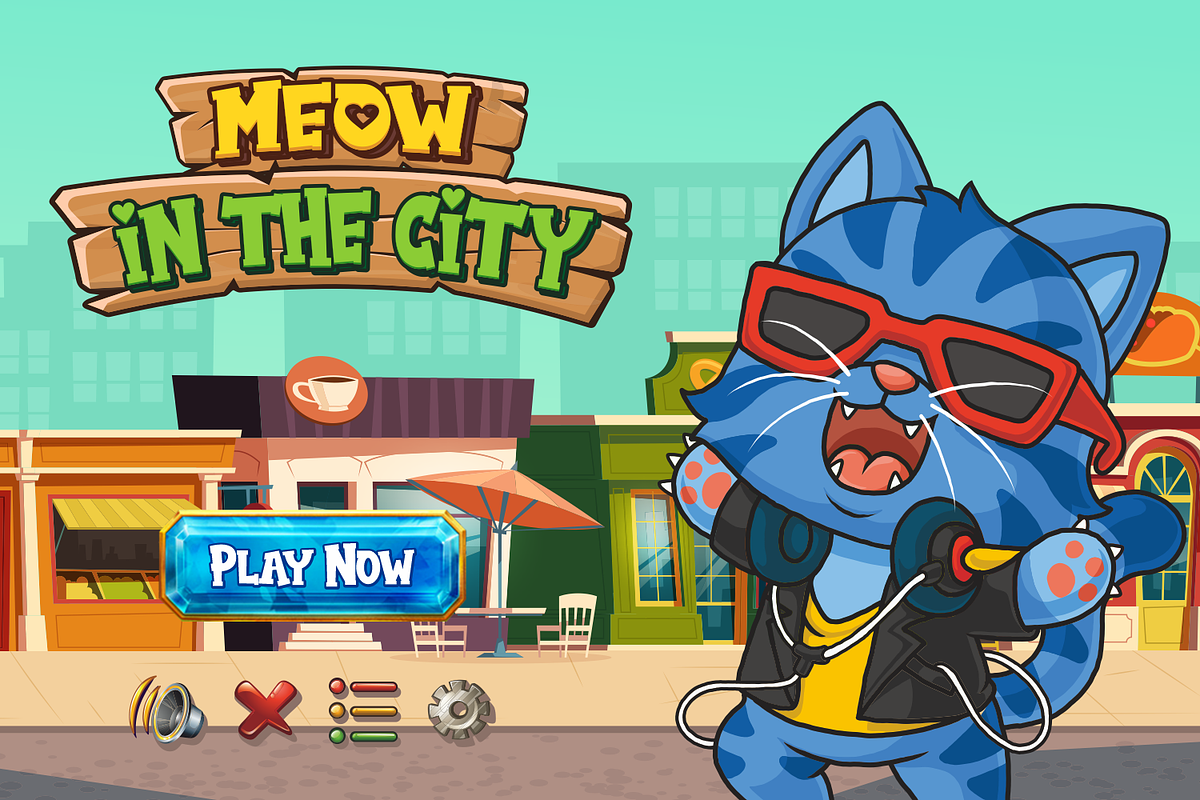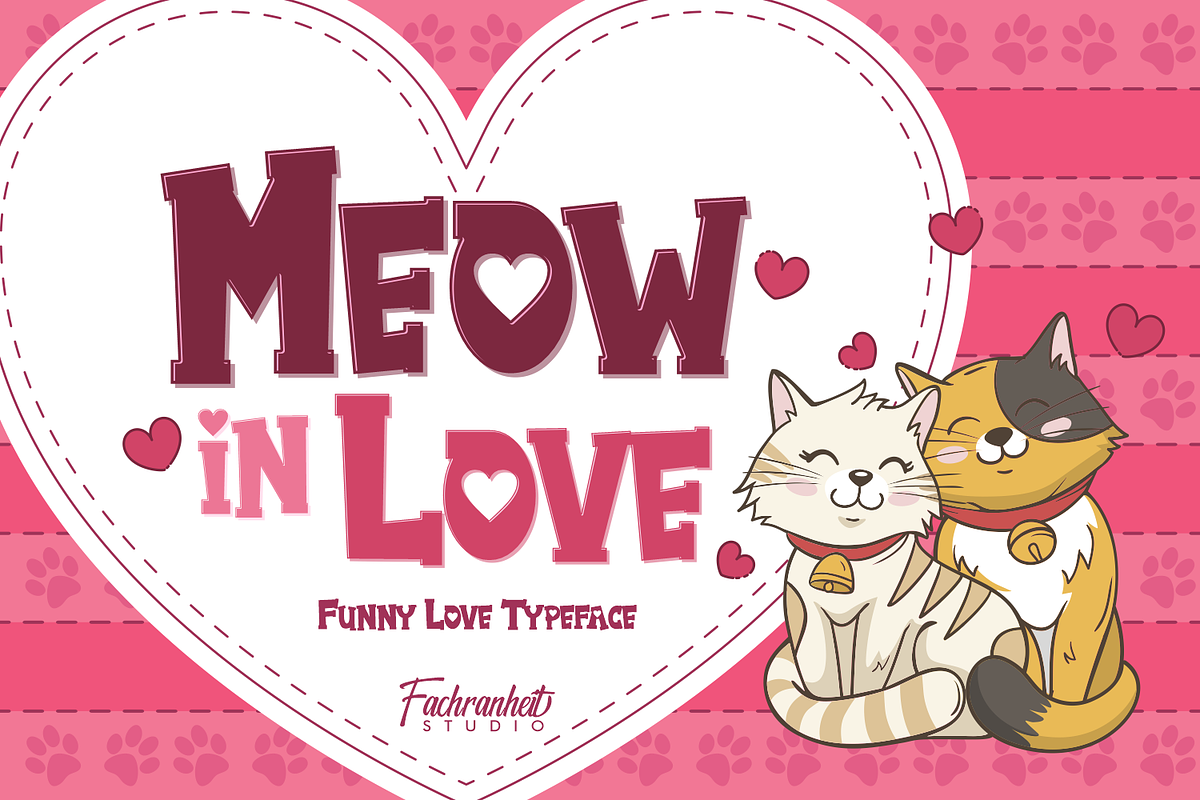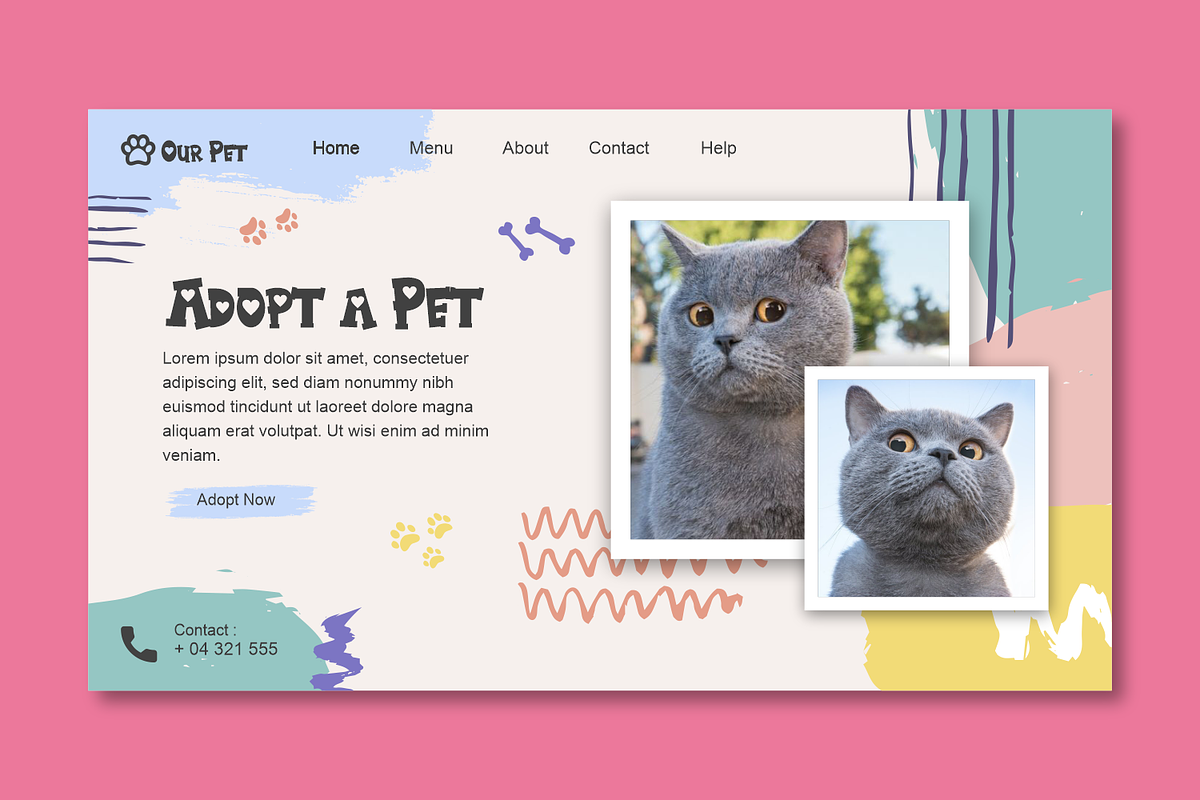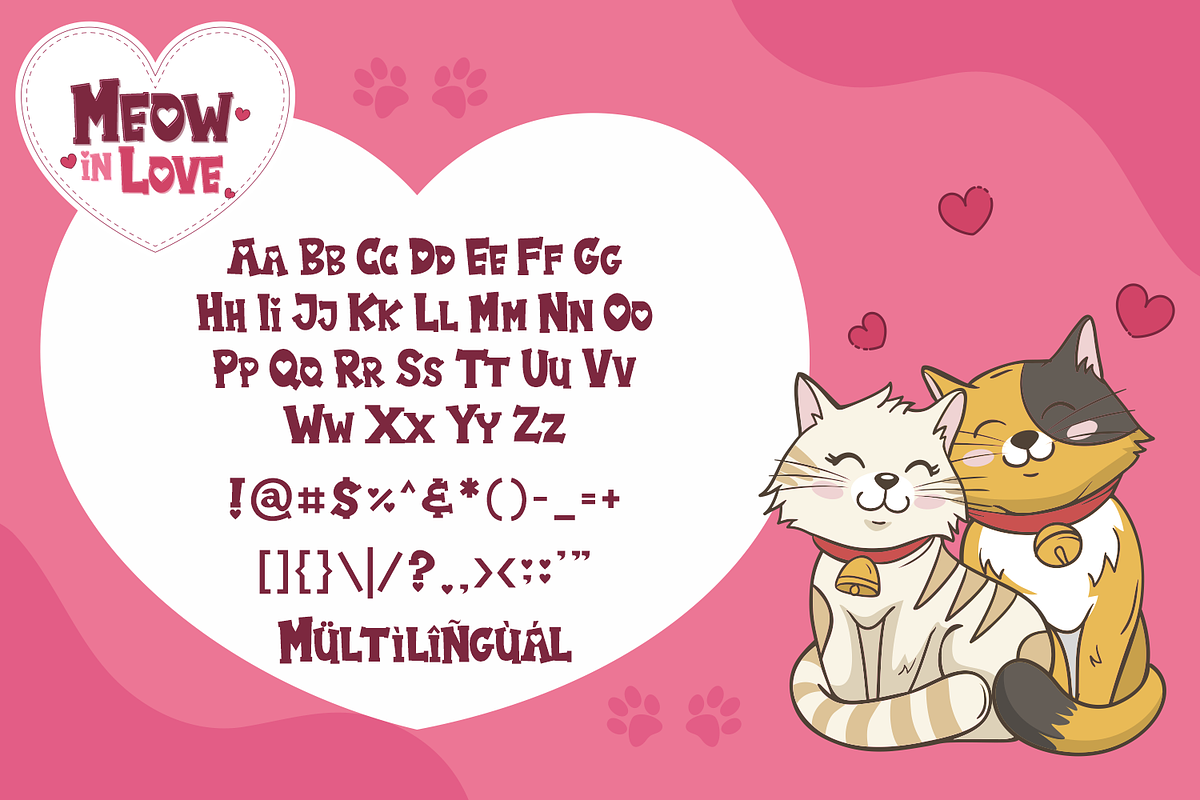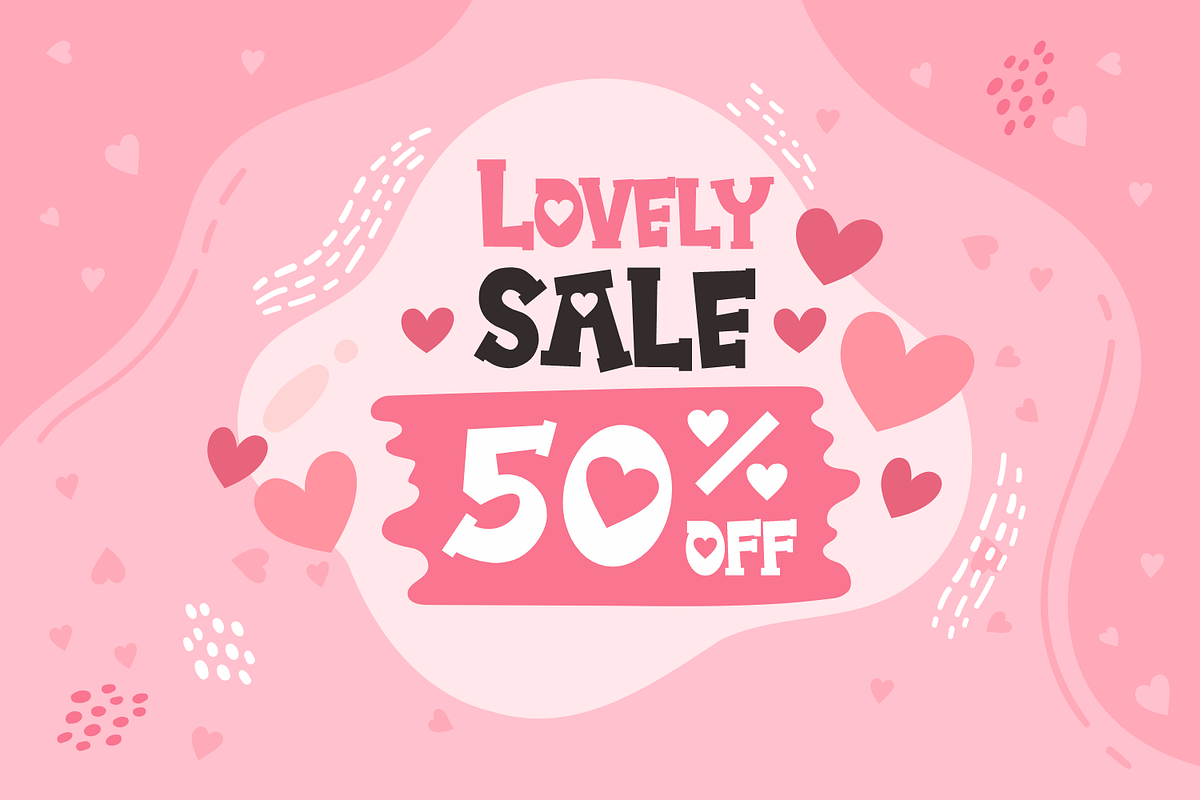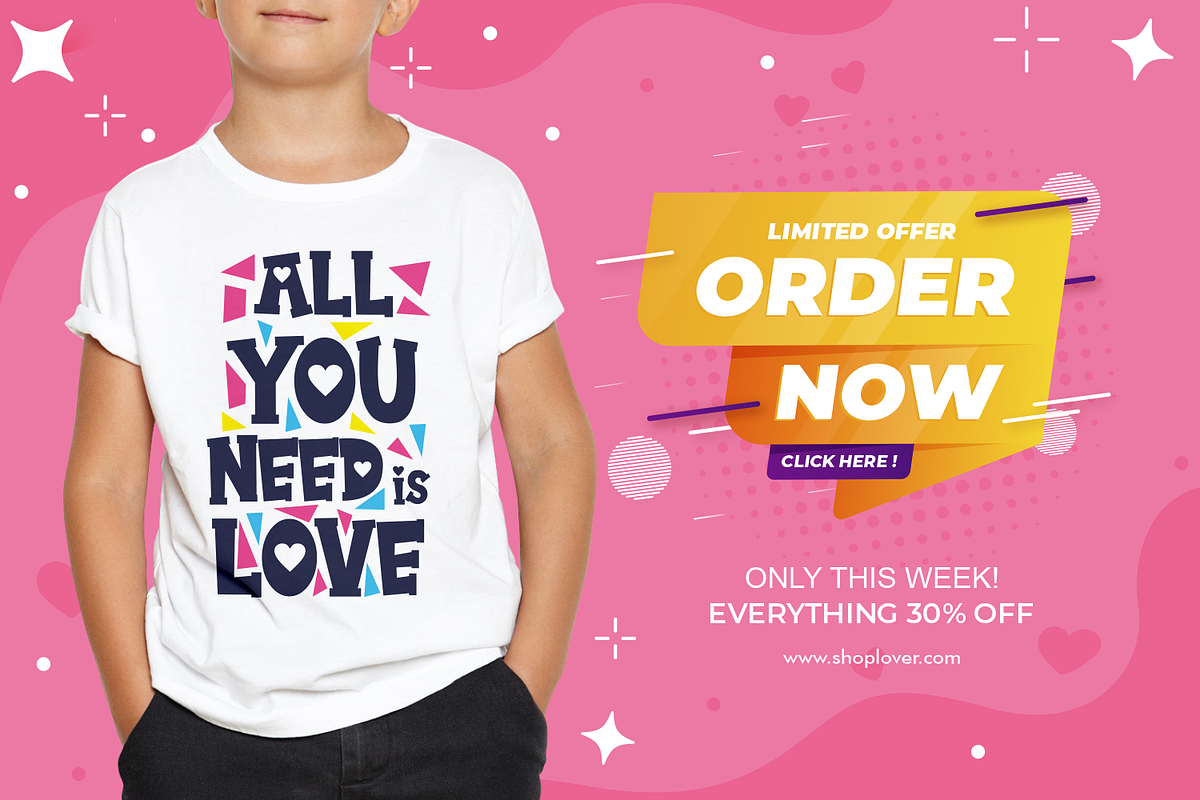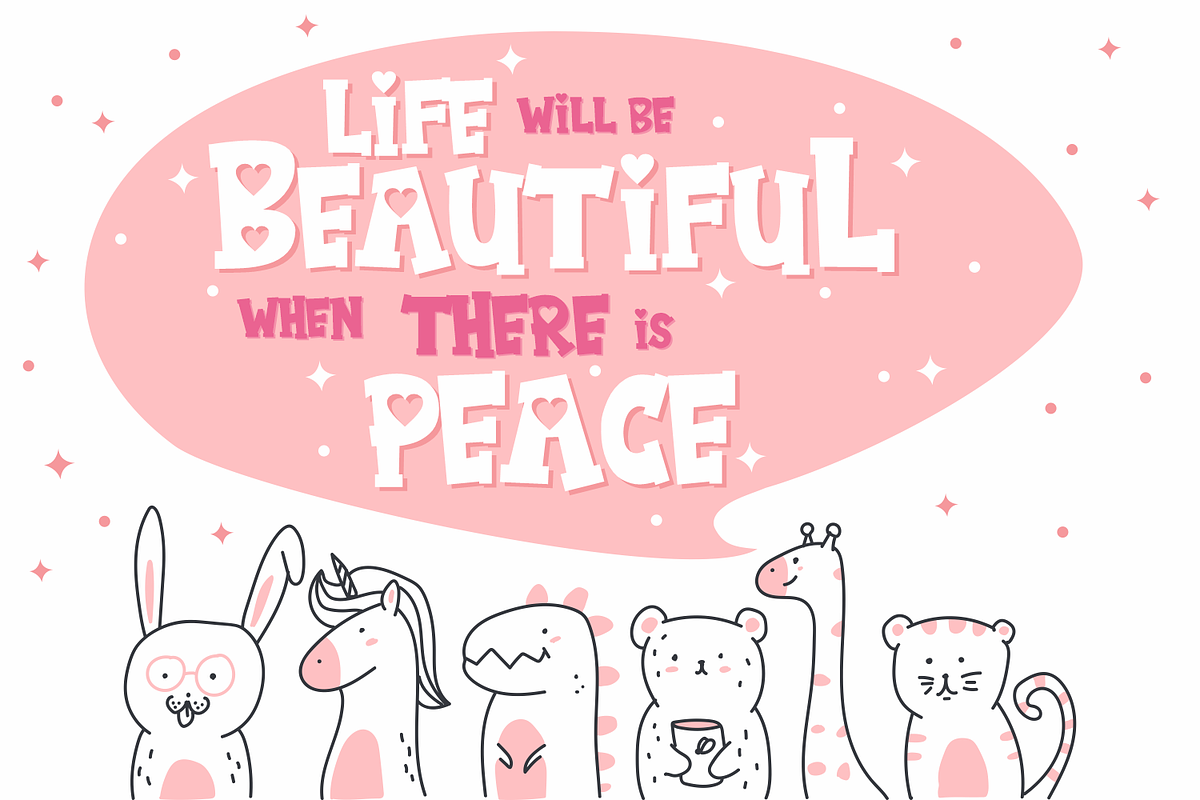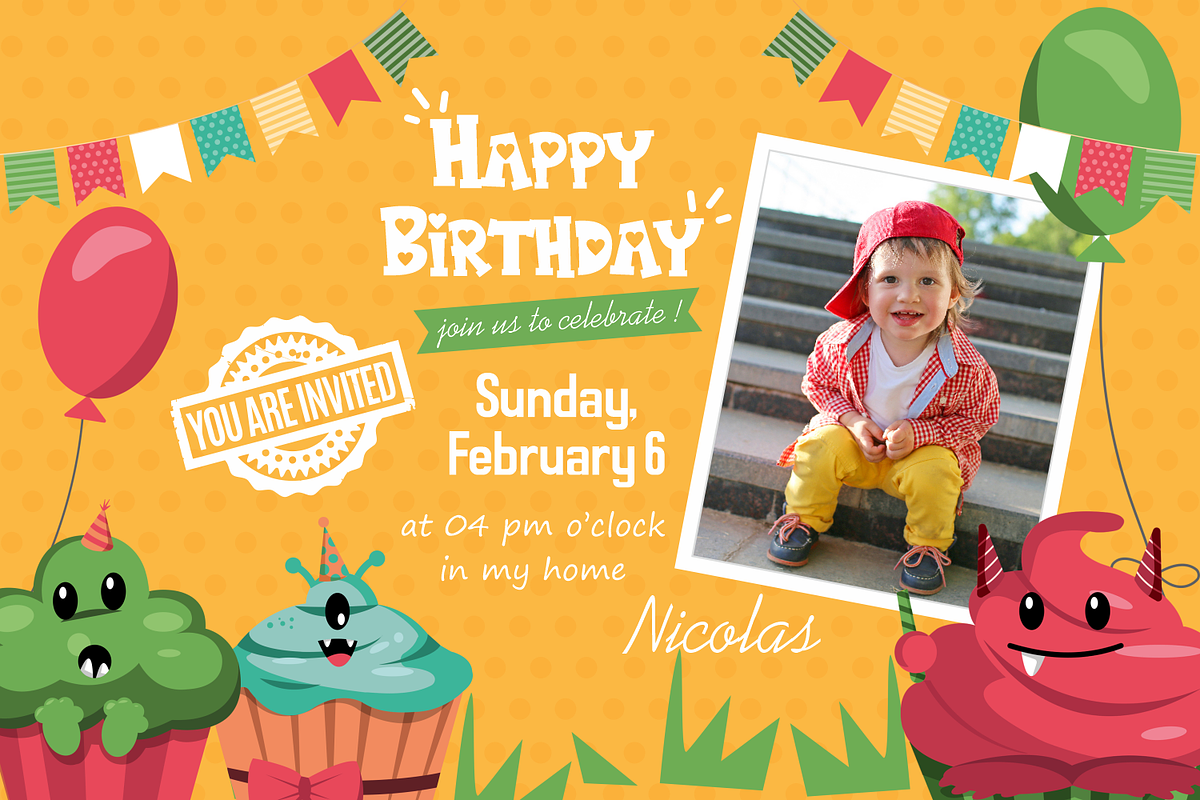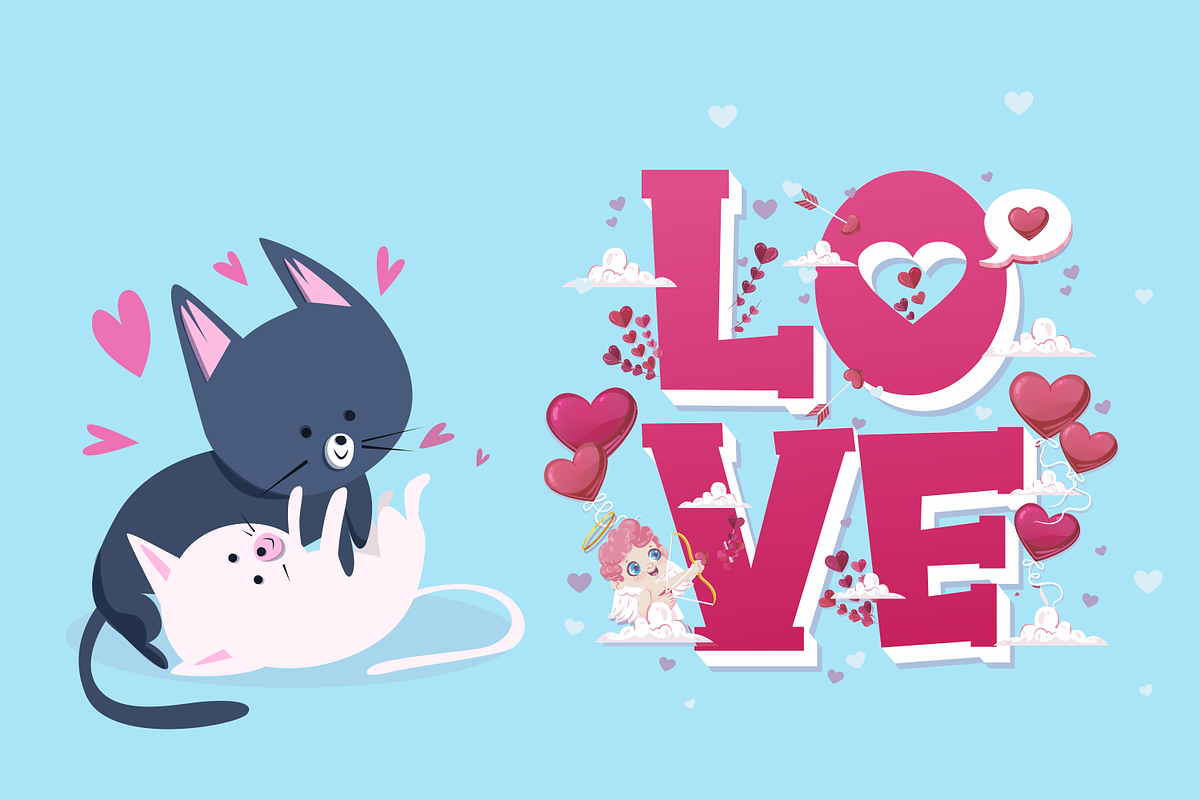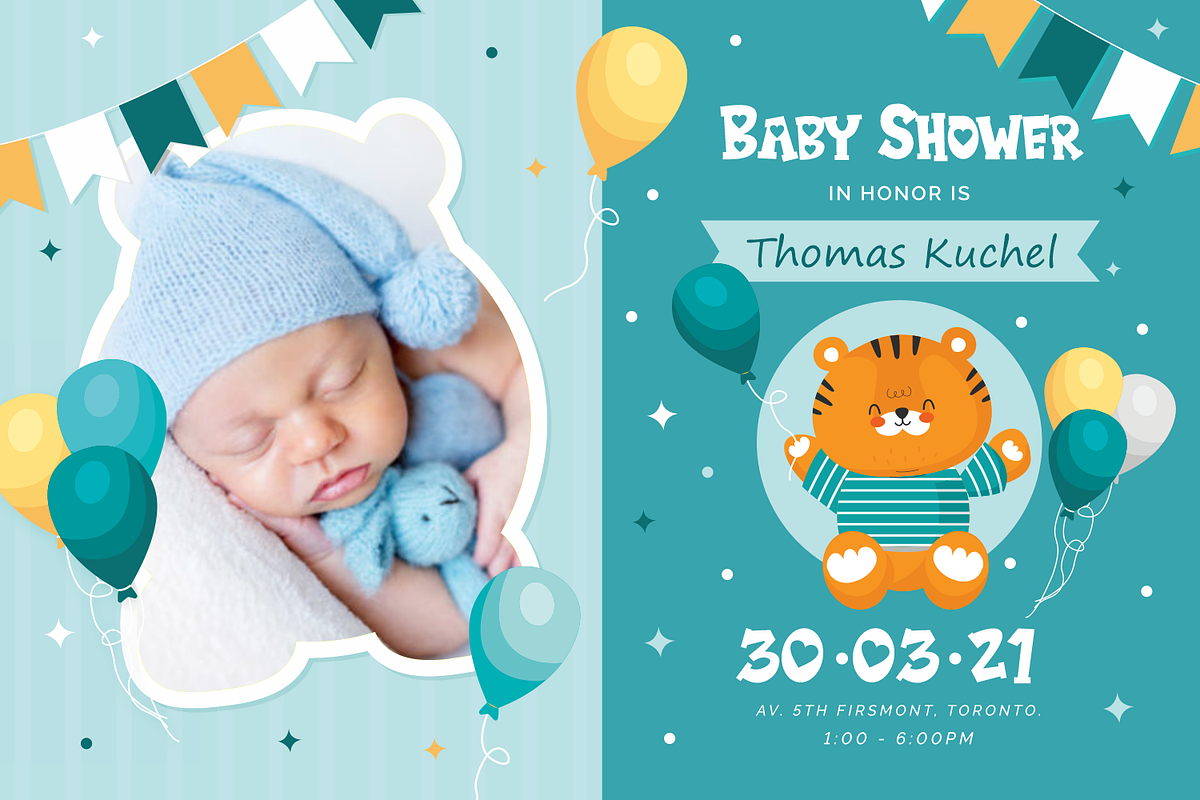
Meow in Love
Meow in Love is a display font
The simple characteristics of Meow in Love make it very suitable for various purposes such as quotes, t-shirt designs, flyers, youtube channels, labels, logos etc.
- Multilanguage Support